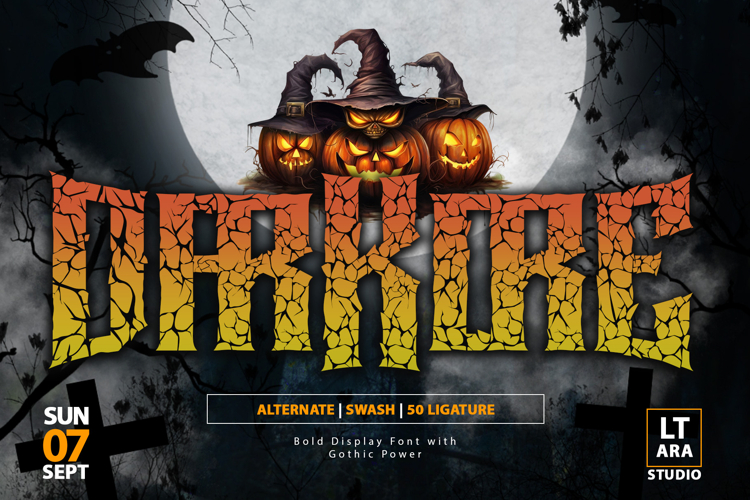
Introducing Darkkore, a bold display font forged with gothic power and a cracked texture that commands attention. Its sharp edges, dramatic forms, and eerie atmosphere make it perfect for horror posters, Halloween events, metal band logos, or any design that needs a fearless statement. Packed with alternates, swashes, ligatures, and multilingual support, Darkkore gives you full creative control to unleash darkness with style. Step into the shadows and let Darkkore turn your designs into haunting works of art.